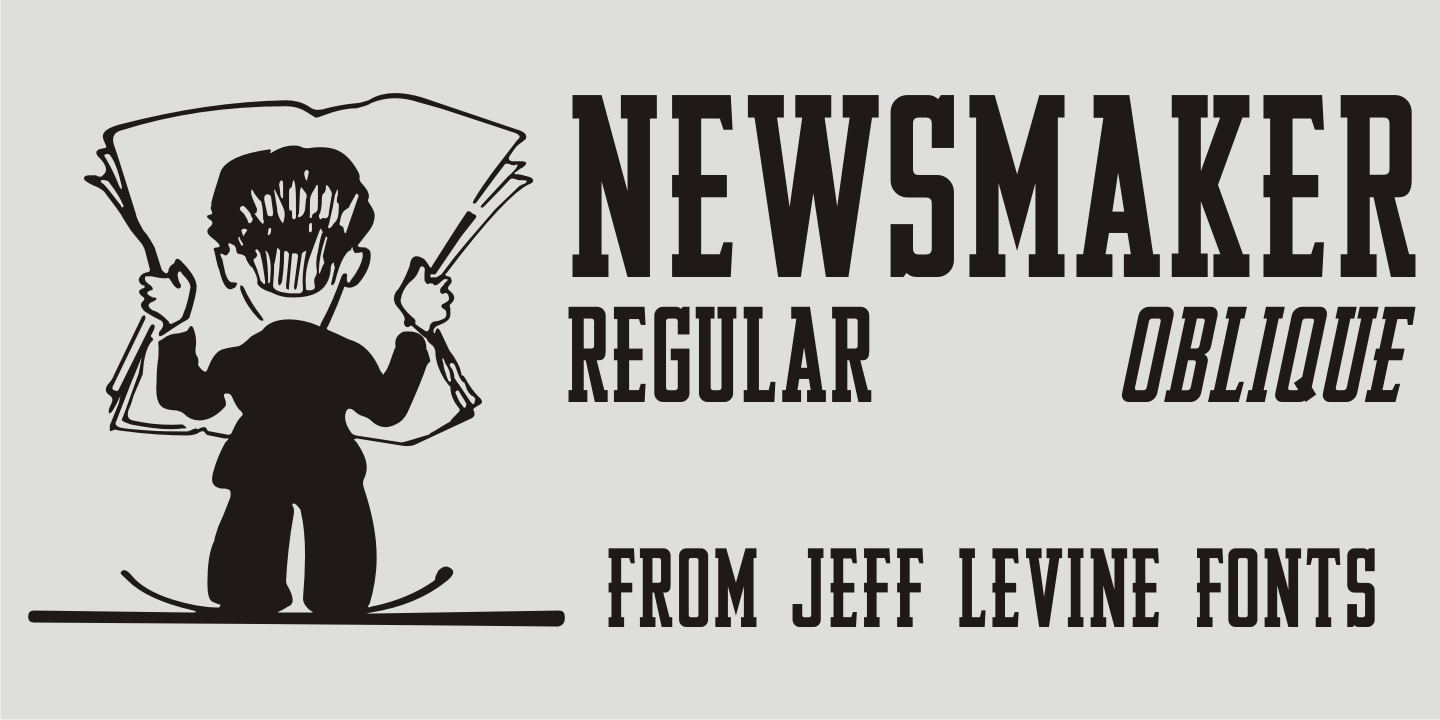
Newsmaker
A WPA (Works Progress Administration) poster from the 1940s saying 'Behind the Headlines” presented the title hand-lettered in a bold, condensed slab serif. This became the model for Newsmaker JNL, available in both regular and oblique versions.
Newsmaker JNL Regular by Jeff Levine Fonts